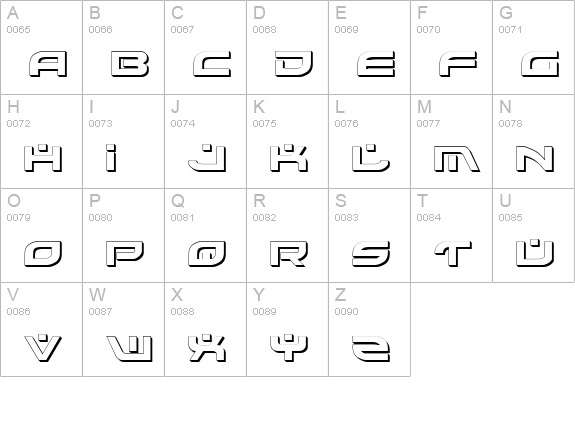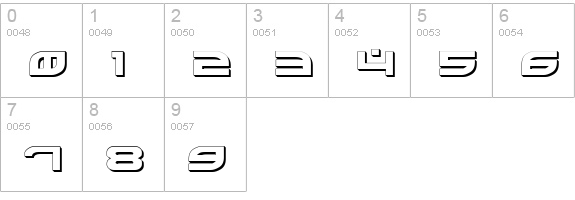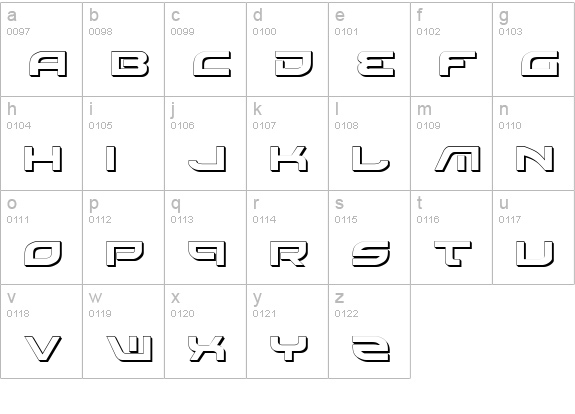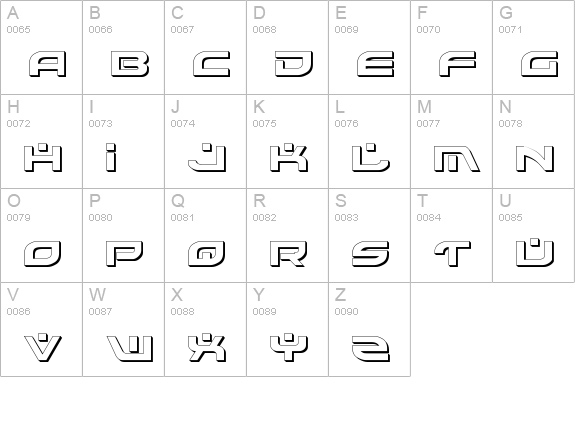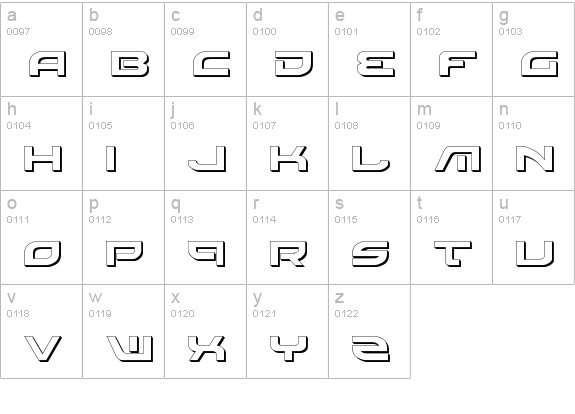
Battlefield Shadow Font Details
Battlefield Shadow font is a bold and striking typeface that exudes strength and power. With its sharp edges and deep shadows, this font commands attention and makes a statement. Perfect for creating impactful headlines, titles, and logos, Battlefield Shadow adds a touch of drama to any design project. The best part? Battlefield Shadow font is completely free to download at FontsMarket.com. Don't miss out on this versatile and eye-catching typeface that will take your designs to the next level. Download it now and unleash the power of Battlefield Shadow in your projects!